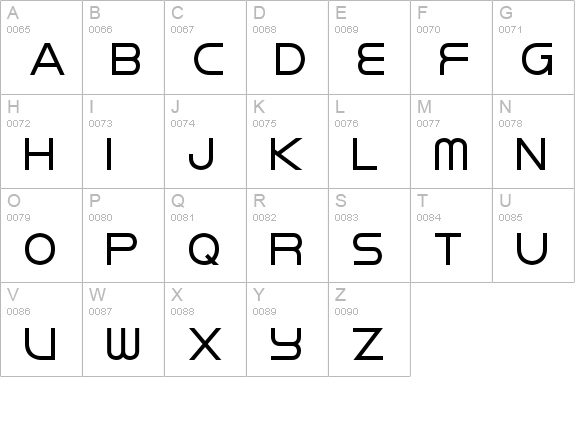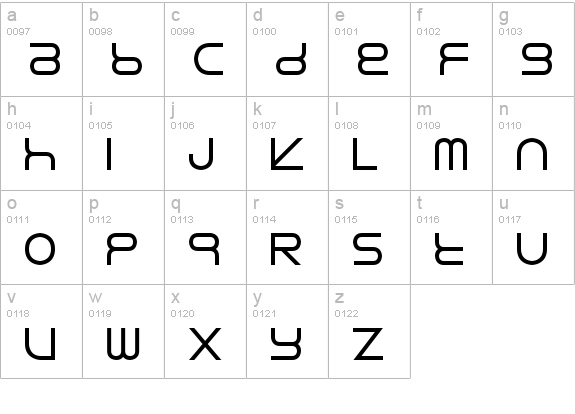
Rikos Font Details
Introducing Rikos, a mesmerizing and versatile font that will add a touch of elegance and sophistication to your designs. With its graceful curves and balanced letterforms, Rikos effortlessly captures attention and creates a lasting impression. Whether used for branding, editorial projects, or signage, this font is sure to elevate any project to new heights. But what sets Rikos apart from other fonts? It's the fact that it is free! Yes, you read that right. Rikos is not only stunning but also freely available to download at FontsMarket.com. This means that you can bring your creative visions to life without breaking the bank. Designed with meticulous attention to detail, Rikos offers a wide range of weights and styles, allowing for endless possibilities in your design work. From delicate thin strokes to bold and impactful variations, Rikos adapts effortlessly to any typographic need. The legibility of Rikos is unparalleled, making it perfect for both print and digital applications. Its clean and well-defined letterforms ensure that your message is conveyed with clarity and precision, no matter the size or format. Whether you're designing a logo, crafting a headline, or simply looking to add a touch of elegance to your project, Rikos is the perfect choice. Its timeless beauty and versatility make it suitable for a wide range of applications, from high-end fashion campaigns to sophisticated invitations. So why wait? Unlock the potential of your designs with Rikos, the font that combines beauty, versatility, and affordability. Download it for free today at FontsMarket.com and take your designs to new heights.